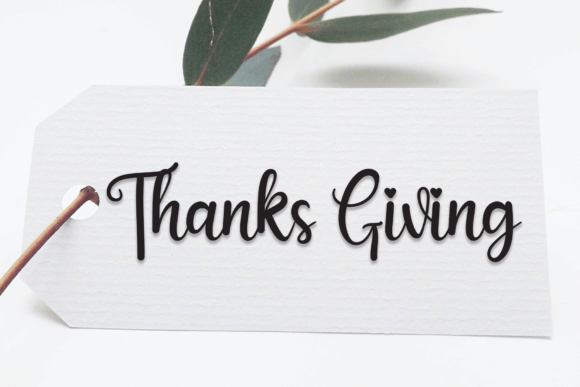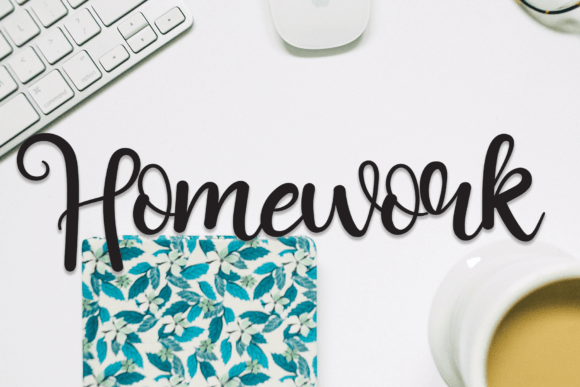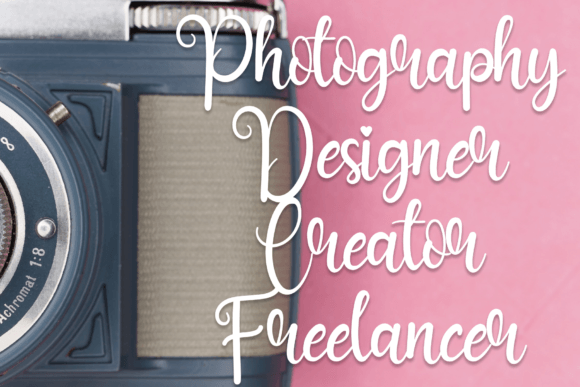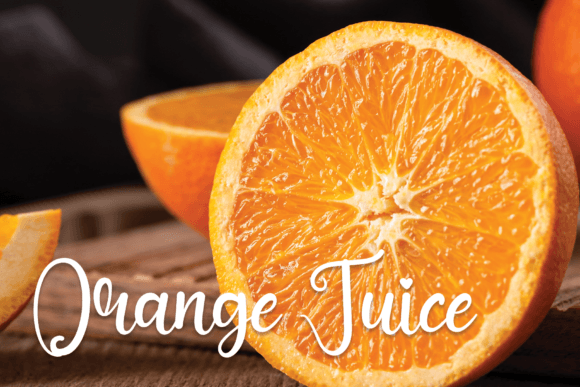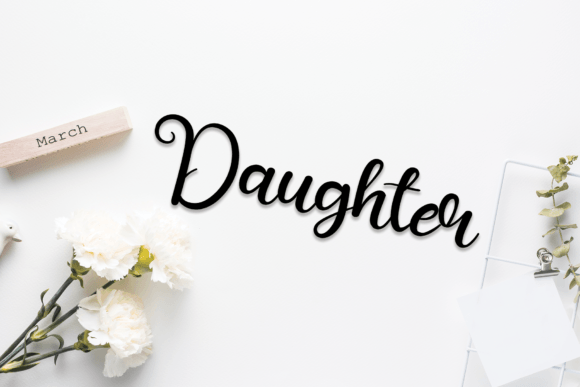
Thanks Giving Font
The Thanks Giving Font Download is a fun and friendly handwritten script that brings joy and personality to any creative project. With its casual strokes and versatile design, this font adapts beautifully to crafts, digital creations, invitations, branding, and posters. Thanks Giving is the typeface that feels welcoming, playful, and professional all at once, making it a true asset for designers.
A Handwritten Script with Warmth and Fun
Unlike plain fonts, the Thanks Giving script font combines natural handwritten curves with smooth lines to create a playful yet stylish look. As a result, it is perfect for projects where warmth and personality matter.
Handwritten fonts always make personal stationery more meaningful. The Thanks Giving Font is excellent for wedding invitations, seasonal greeting cards, thank you notes, and birthday designs. Moreover, its fun flow ensures that every message looks heartfelt and cheerful.
Branding and Logo Design with Thanks Giving Font
Typography is central to branding, and the Thanks Giving handwritten font works wonderfully for boutique logos, product packaging, and promotional materials. In addition, its playful strokes create a professional yet approachable image for businesses.
Posters, Titles, and Creative Displays
The Thanks Giving Font Download is a great choice for posters, banners, and magazine covers. Therefore, it adapts well across both small-scale and large-scale projects, keeping designs bold yet charming.
In digital spaces, fonts must be engaging while staying versatile. The Thanks Giving typeface integrates smoothly into Instagram posts, Pinterest graphics, YouTube thumbnails, and blog headers. Its friendly handwritten design ensures digital content looks polished and appealing.
Why Designers Choose Thanks Giving Typeface
Designers often look for fonts that balance readability with character. Many handwritten styles can lose clarity, but the Thanks Giving handwritten script keeps its legibility while adding a fun, inviting style. This makes it a dependable choice for both hobbyists and professionals.
Add Joyful Warmth to Your Projects Today
If you want a handwritten script that feels fun, friendly, and versatile, the Thanks Giving Font Download is the perfect choice. From greeting cards and invitations to branding and posters, it enriches every project with charm and joy. Finally, download Thanks Giving today and let your designs shine with cheerful handwritten elegance.